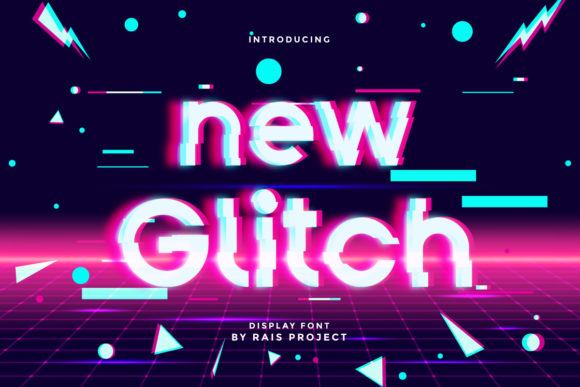
Prepare yourself for the arrival of New Glitch, an awe-inspiring display font that will revolutionize your digital presence. Born from the innovative minds at RaisProject, this typographic masterpiece blends the allure of the future with the boldness of the present, igniting a sensory experience that will captivate your audience.
New Glitch dances across the screen, exuding an irresistible charm that commands attention. Its futuristic charm, reminiscent of captivating sci-fi movie covers and adrenaline-pumping action games, will transport your creations to realms where imagination reigns supreme.
With a stroke of genius, New Glitch breathes life into drama and crime novels, its characters echoing the enigmatic allure of shadowy figures and the pulse-pounding intensity of illicit encounters. Allow your words to dance in perfect harmony with this captivating font, creating a symphony of suspense that will leave readers breathless.
But New Glitch's versatility extends far beyond the confines of fiction. Its bold presence electrifies club posters and other daring projects, adding an edgy flair that will set your creations apart from the mundane. Imagine your designs pulsating with an otherworldly energy, attracting gazes like moths to a flame.
New Glitch is not just a font; it's a gateway to a world where creativity knows no bounds. Embrace its transformative power and watch as your designs evolve into captivating works of art. Download New Glitch today and unleash the boundless potential within your imagination. Let your creations ignite the digital realm, leaving an indelible mark on the hearts and minds of your audience.